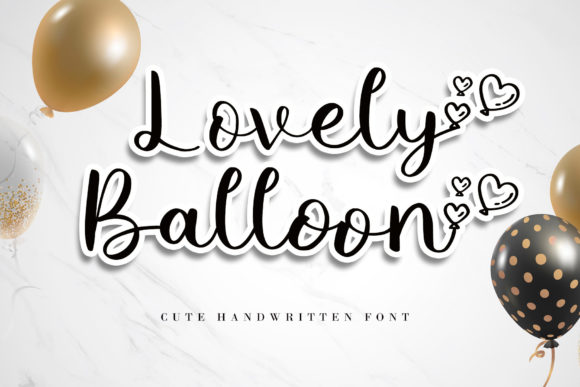
Unleash your creativity and let your designs take flight with Lovely Balloon Font, a captivating script typeface meticulously crafted by AEN Creative Studio. This enchanting font exudes romance and sweetness, featuring characters that dance gracefully along the baseline, adding an irresistible touch of luxury to your design endeavors.
Soar to new heights of creativity with Lovely Balloon Font, an exquisite handwritten typeface designed to elevate your digital planner to breathtaking new realms. Its playful yet elegant strokes dance across the page, inviting you to express your thoughts and ideas with a touch of whimsy and sophistication.
Dive into a world of endless possibilities with Lovely Balloon Font, the ultimate font for digital planners. Its meticulously crafted characters and ligatures, accessible with ease via PUA encoding, open up a treasure trove of design opportunities. Experiment with stunning glyphs, swashes, and alternates to add depth, dimension, and a touch of personal flair to your planner.
With Lovely Balloon Font, the ordinary becomes extraordinary. Transform your digital planner into a masterpiece of visual artistry, where every note, reminder, and task is a work of art. This font is your gateway to a world of captivating designs, where your creativity knows no bounds.
Step into a realm of boundless creativity with Lovely Balloon Font, a font that captures the essence of romance and whimsy. Use it to create enchanting invitations, heartfelt cards, captivating social media posts, or simply to add a touch of magic to your everyday notes and memos.